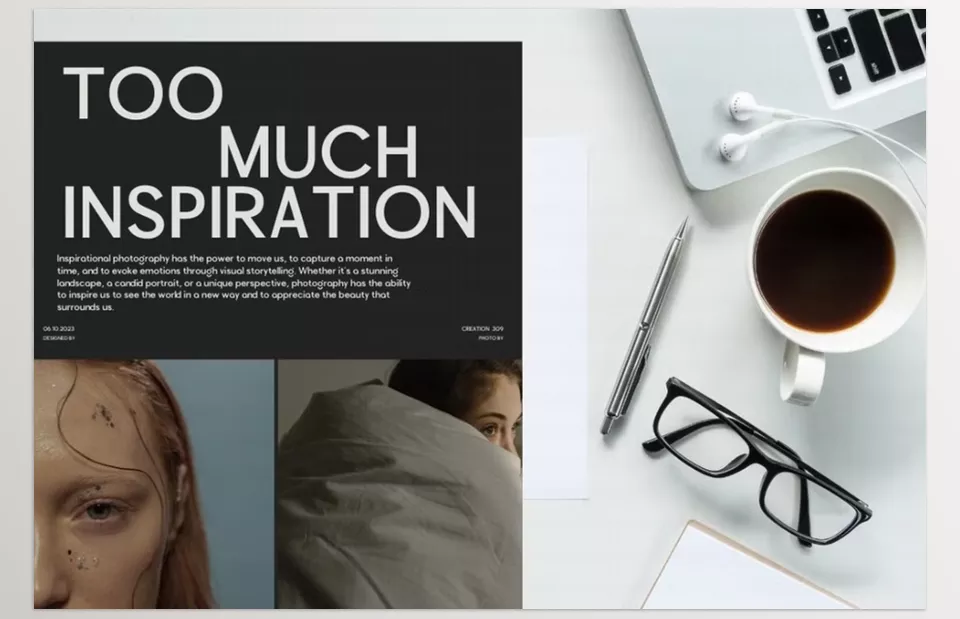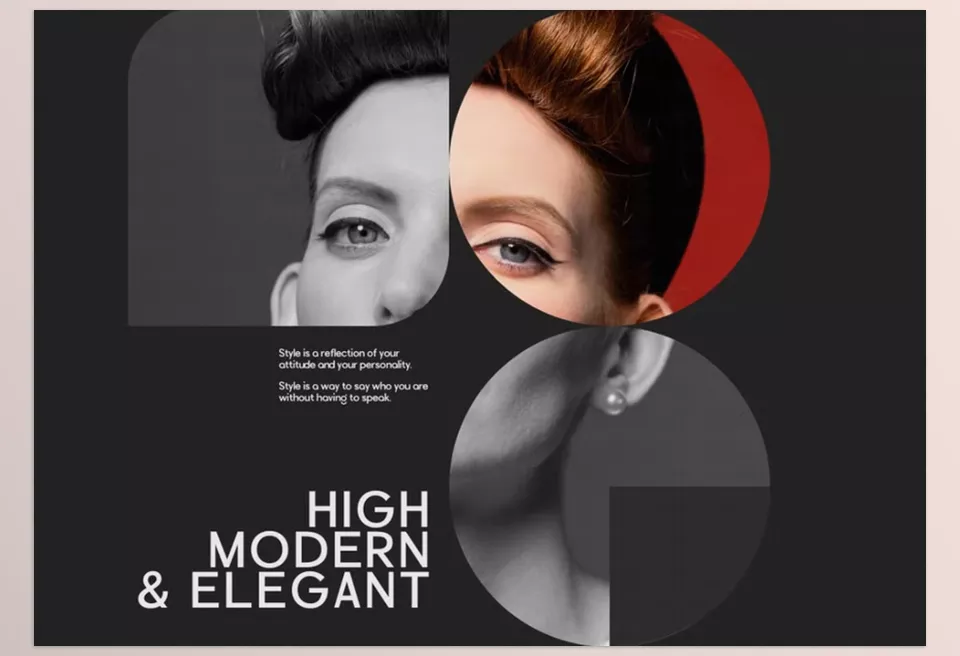
Creative Market – Legian Modern Sans Font is a font that will give a touch of sophistication to your brand, logos, invitations, magazines, product packaging, and more. Its modern elegance makes it ideal for almost any creative project.
Almeera Std – Legian Modern Sans Font Features
• Focuses on sophistication and cleanliness while making the font usable for various disciplines.
• Gears towards professional use for documents, designs, telescopes, and folders.
Preview Legian Modern Sans Font
Image 1: Elevate your designs with a crisp, contemporary typeface made for modern branding and editorial layouts.
Creative Market - Legian Modern Sans Font - Elevate your designs with a crisp, contemporary typeface made for modern branding and editorial layouts.
Image 2: A sleek and versatile font that brings refined simplicity to logos, packaging, and everything in between.
Creative Market - Legian Modern Sans Font - A sleek and versatile font that brings refined simplicity to logos, packaging, and everything in between.